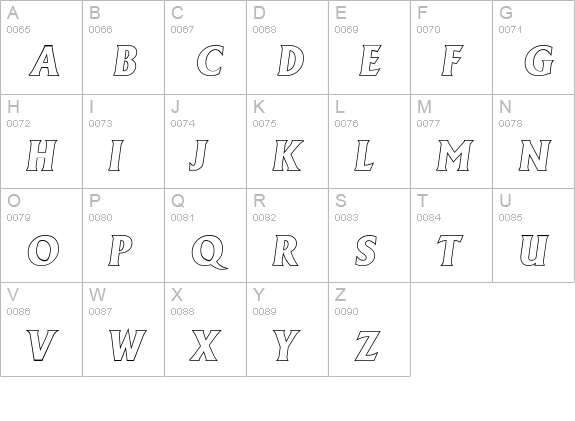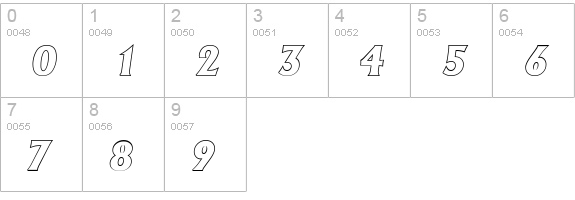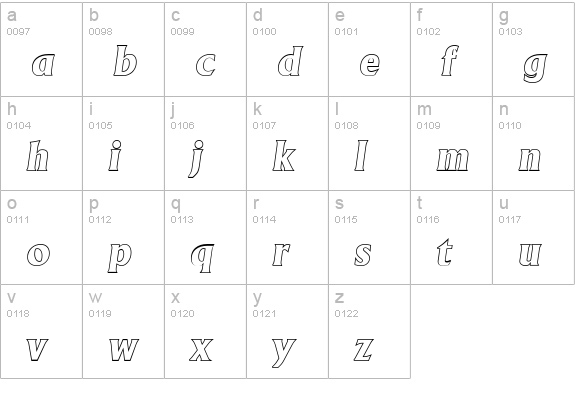
AdelonOutline-Xbold-Italic is a distinctive, italic variant in the AdelonOutline typeface family \xE2\x80\x94 well suited to design and typography projects.
Introducing AdelonOutline-Xbold-Italic font, a striking and modern typeface that exudes elegance and sophistication. With its bold yet refined appearance, this font is perfect for making a bold statement in your design projects. The sleek lines and unique italic style of AdelonOutline-Xbold-Italic add a touch of flair and creativity to any text. The best part? AdelonOutline-Xbold-Italic font is completely free to download at FontsMarket.com. This means you can easily enhance your designs with this stylish and eye-catching font without breaking the bank. Whether you're working on a branding project, poster design, or any other creative endeavor, AdelonOutline-Xbold-Italic is sure to make a lasting impression. Don't miss out on this amazing opportunity to elevate your designs with the AdelonOutline-Xbold-Italic font, available for free download at FontsMarket.com. Grab your copy today and bring a touch of sophistication to your projects!